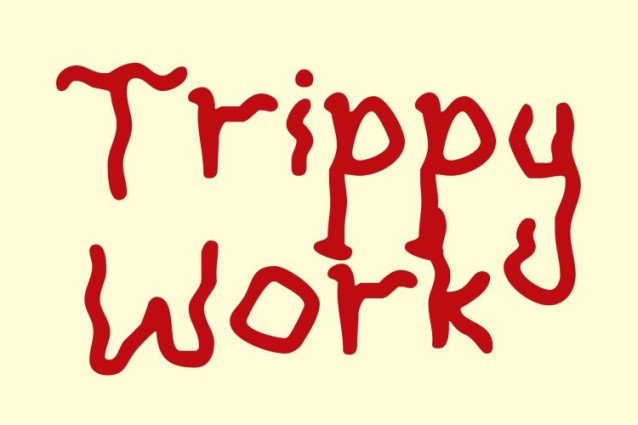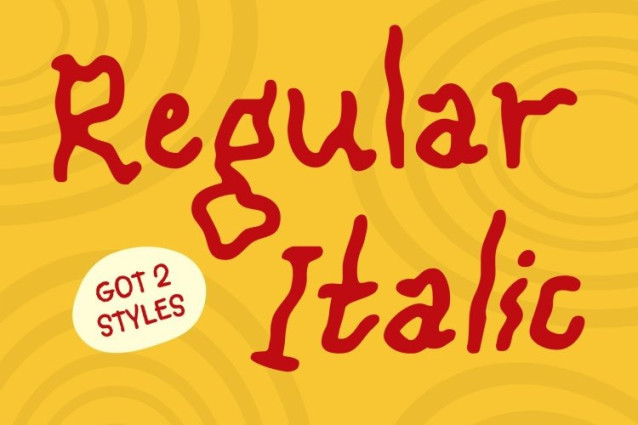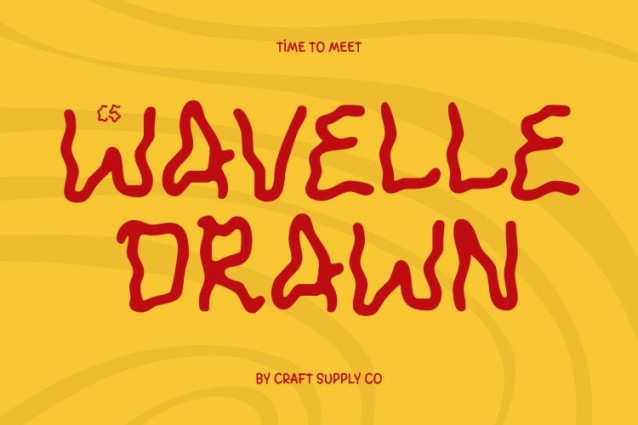
CS Wavelle Drawn Font
CS Wavelle Drawn Font This is an experimental display font that flows with rhythm and imagination. Defined by liquid curves and trippy, organic shapes, it captures a sense of movement and spontaneity. The drawn effect enhances its freeform nature, making every letter feel alive, expressive, and visually dynamic.
Handwritten Fluidity with Playful Energy
With its natural handwritten quality, this font brings warmth and personality to its psychedelic style. Each curve feels spontaneous yet thoughtfully crafted, creating a playful rhythm that balances creative chaos with visual harmony. The hand-drawn texture adds depth and individuality, reinforcing its artistic character.
Perfect for Music and Creative Visuals
Ideal for music branding, album artwork, funky posters, experimental editorials, and expressive visual identities, this font transforms text into motion. Its trippy influence and fluid flow make it especially effective for projects that celebrate creativity, freedom, and bold self-expression.
Playful, Artistic, and Wonderfully Unpredictable
More than just a typeface, this font is a visual experience. It embodies freeform design bold, expressive, and uninhibited turning typography into a wave of energy and imagination. Use it to infuse your designs with fluid motion, experimental beauty, and a touch of trippy charm.